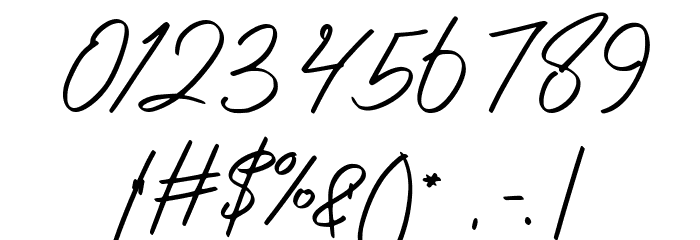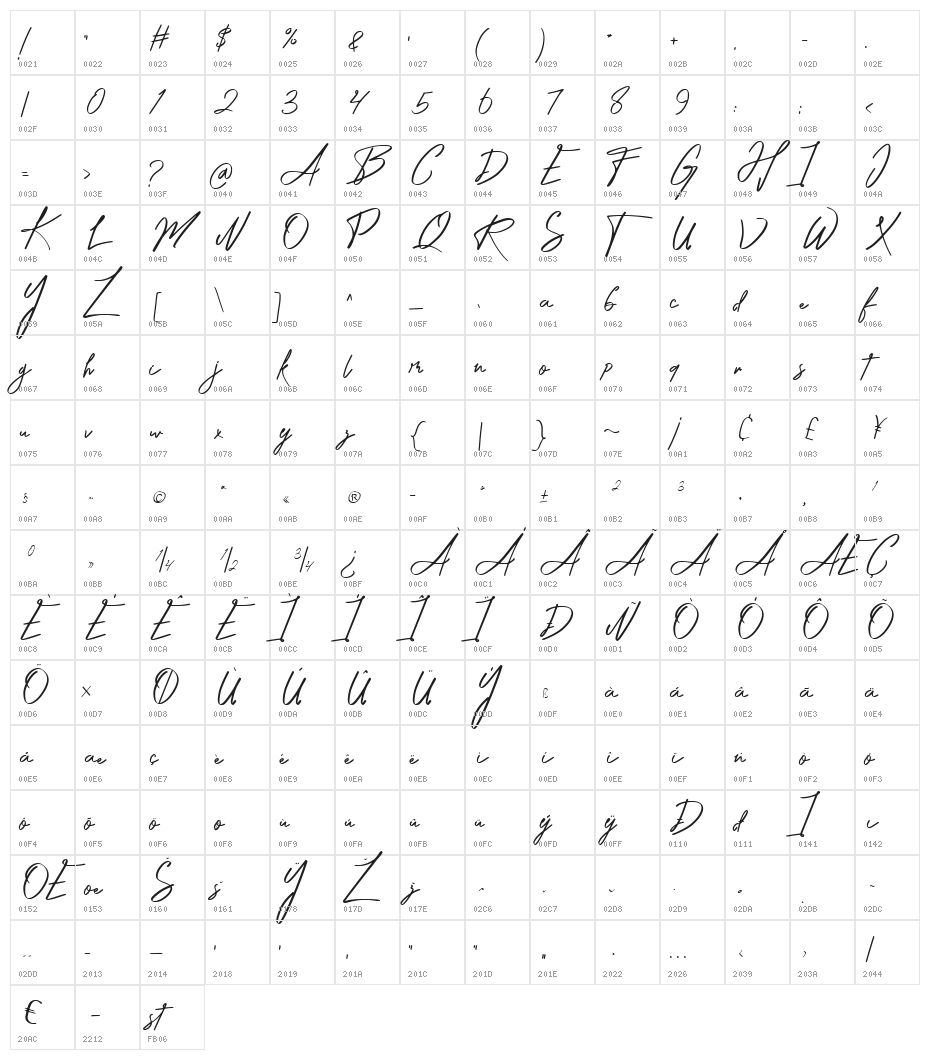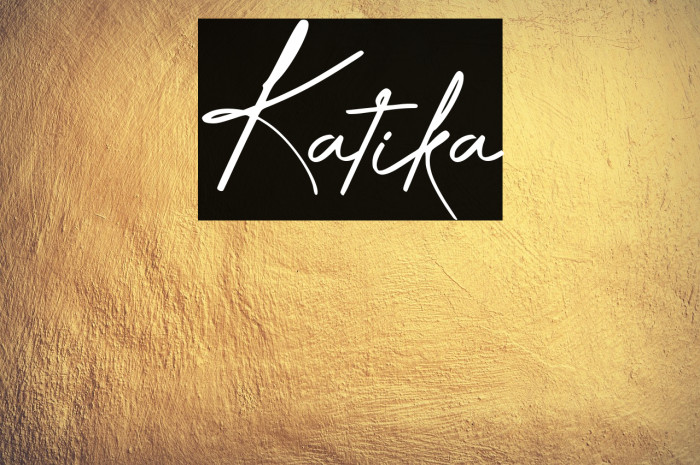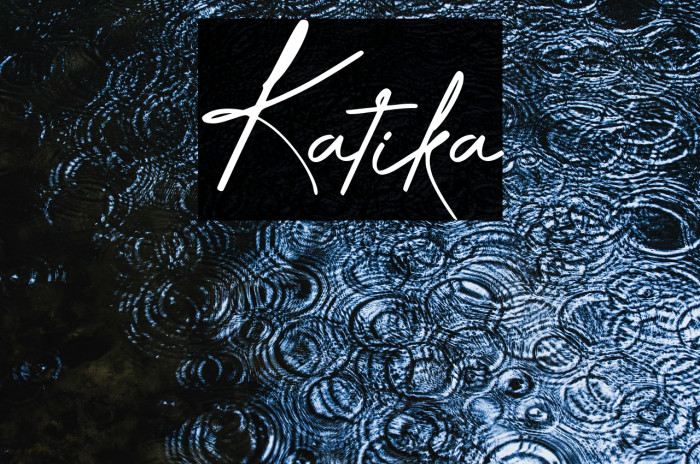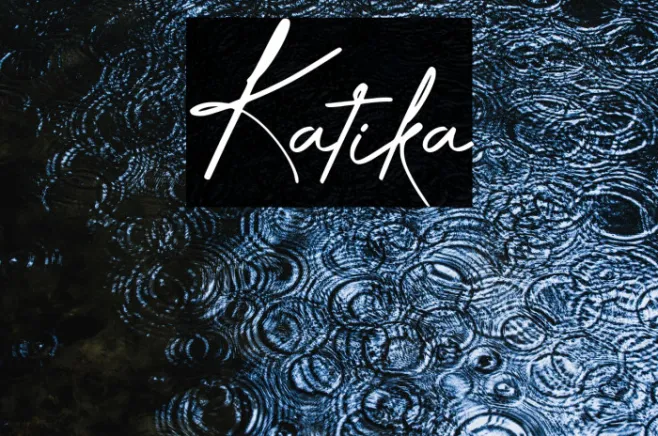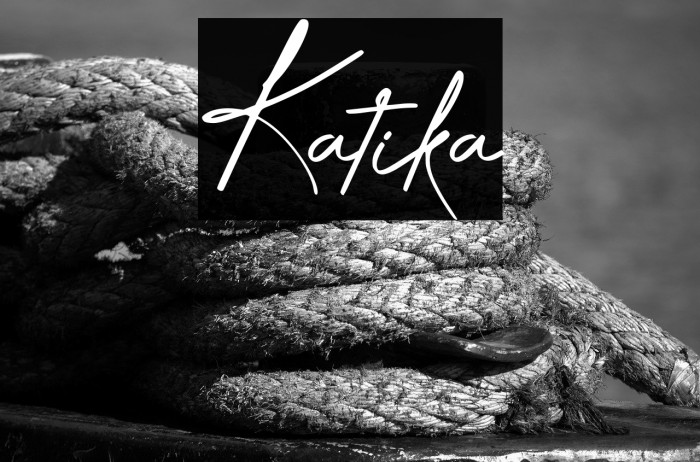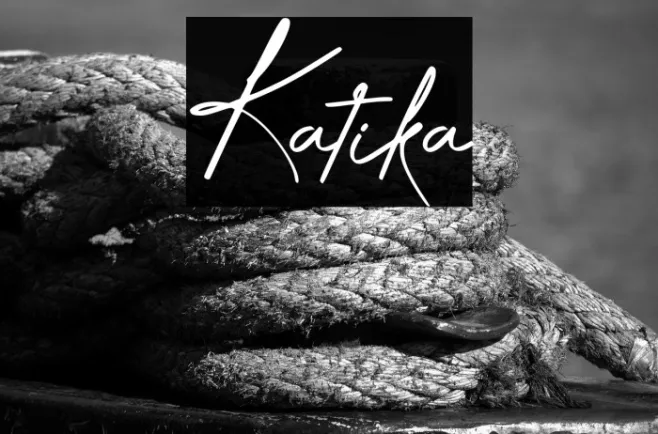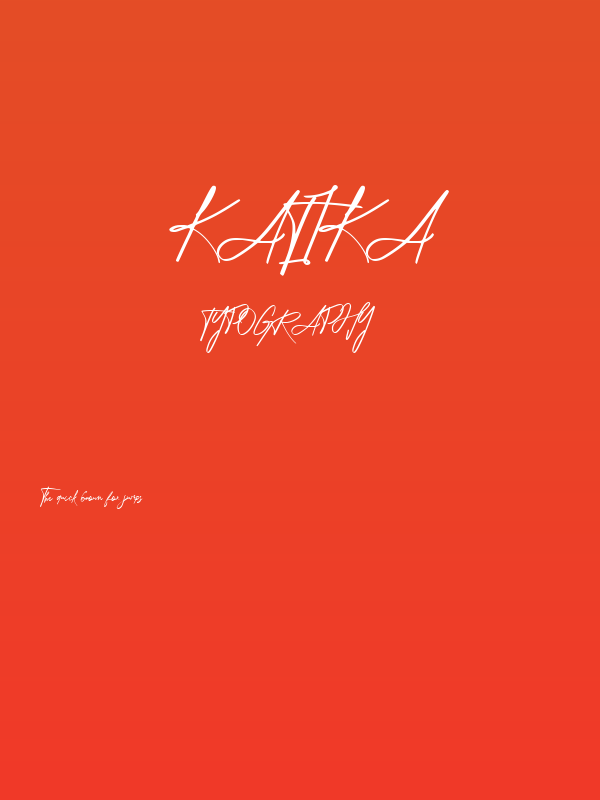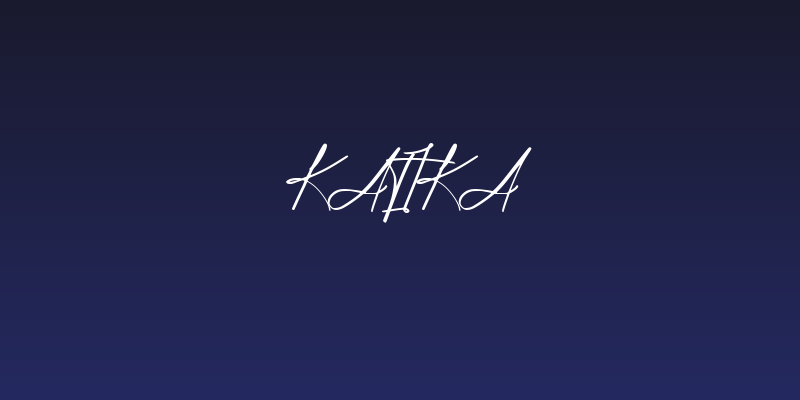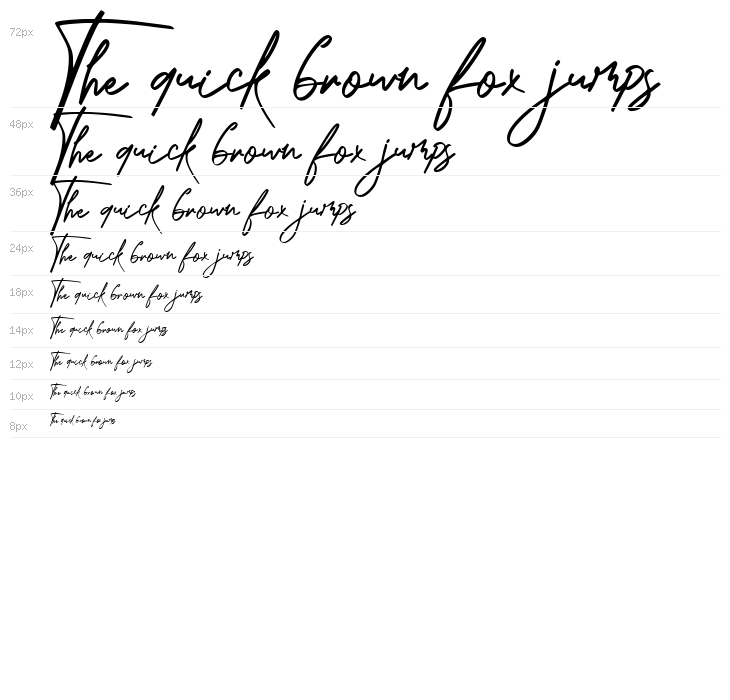
Katika Font
Katika Description
This font exudes a dynamic and expressive style, characterized by its flowing, cursive script that mimics the fluidity of handwriting. The letters are elegantly connected, creating a sense of movement and grace. The uppercase letters are bold and sweeping, while the lowercase letters maintain a consistent rhythm and flow. The numerals and special characters are crafted with the same attention to detail, ensuring a cohesive look across all elements. This font is ideal for projects that require a personal touch, such as invitations, greeting cards, and branding materials. Its artistic flair makes it suitable for creative and decorative applications.